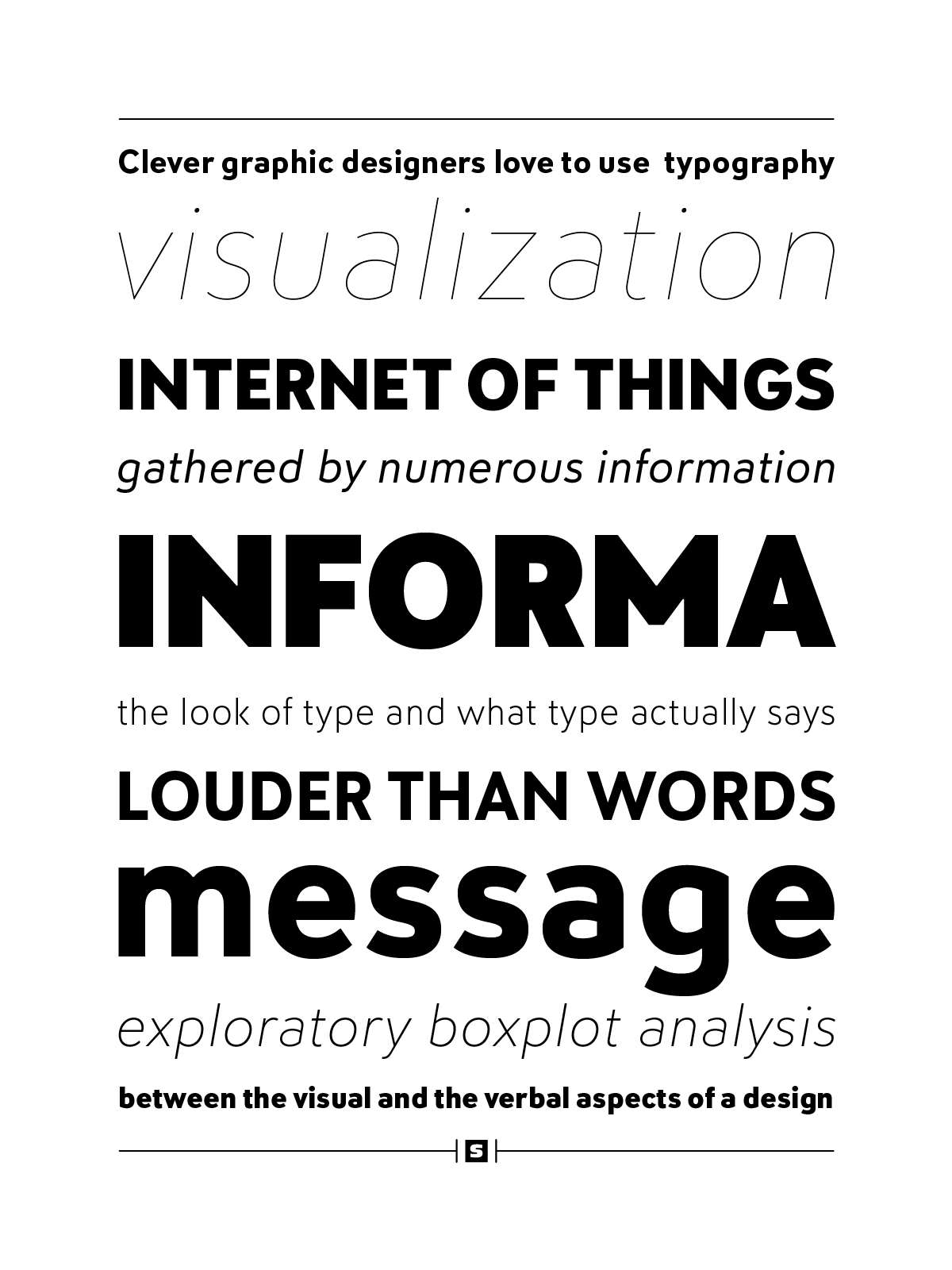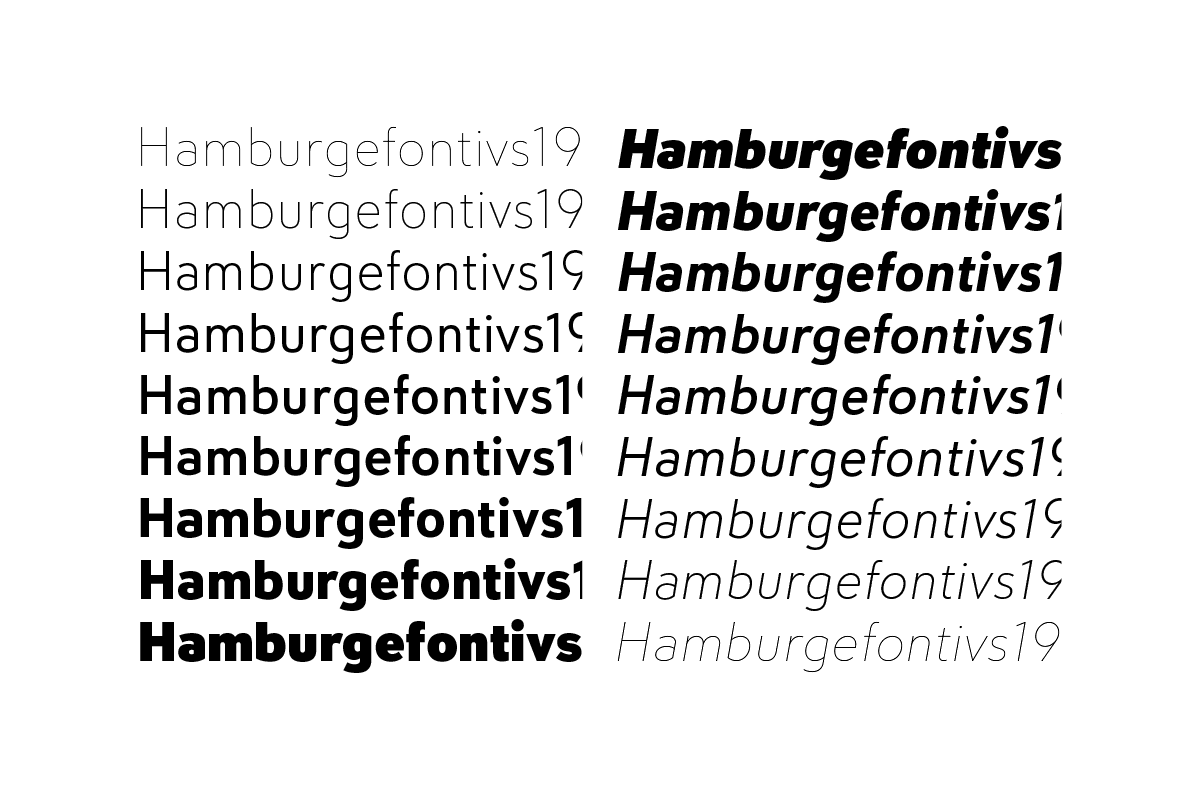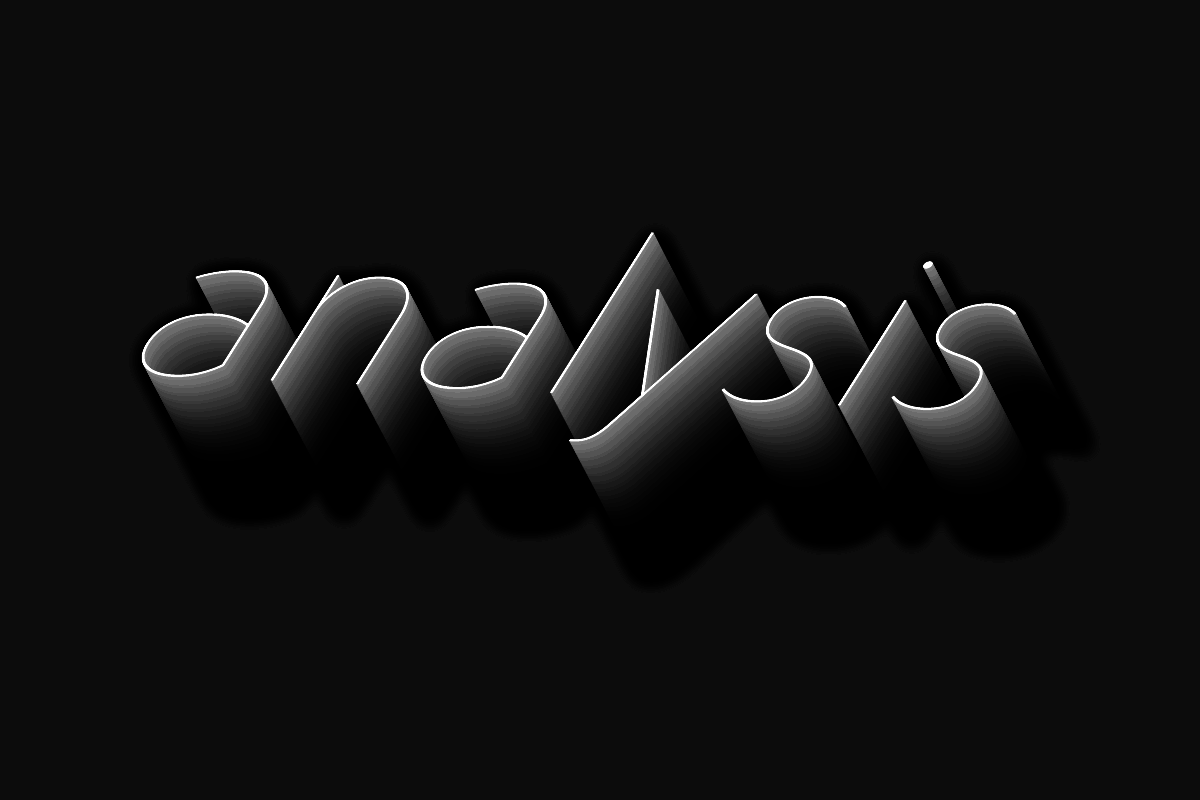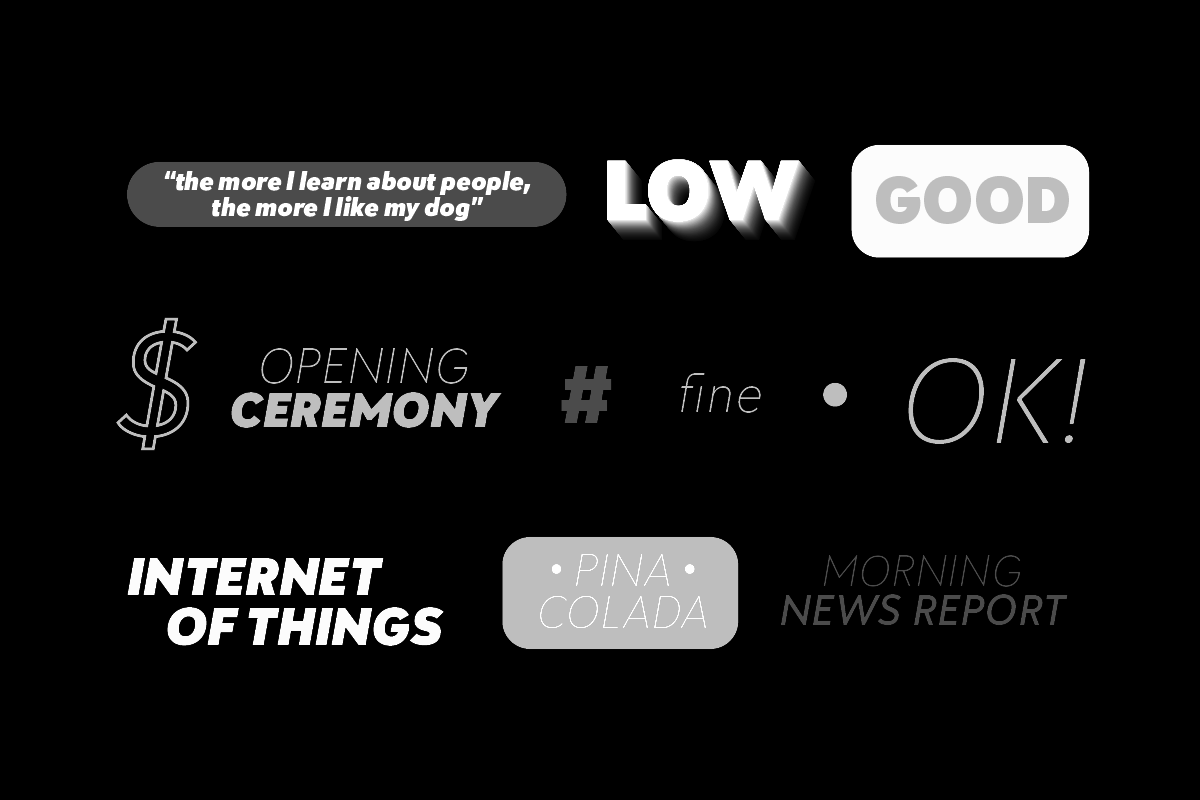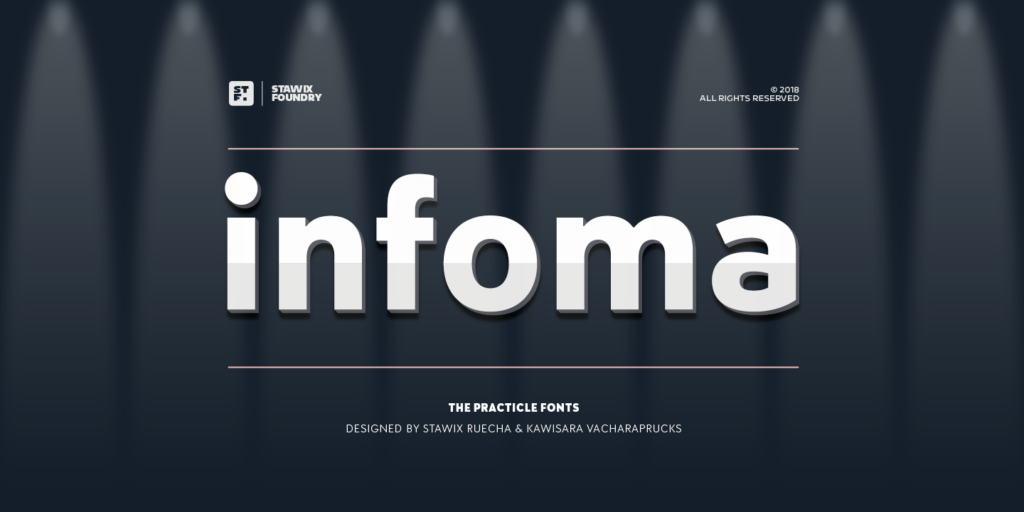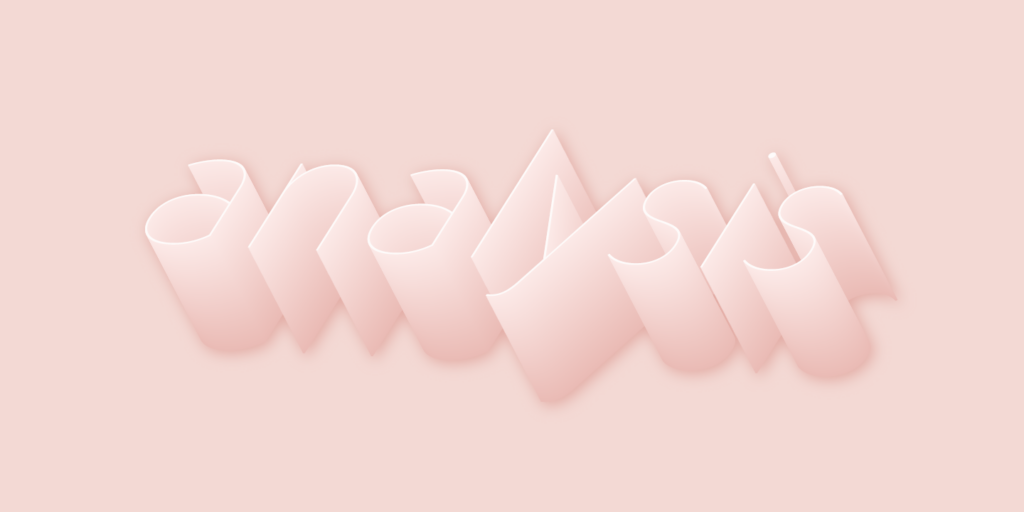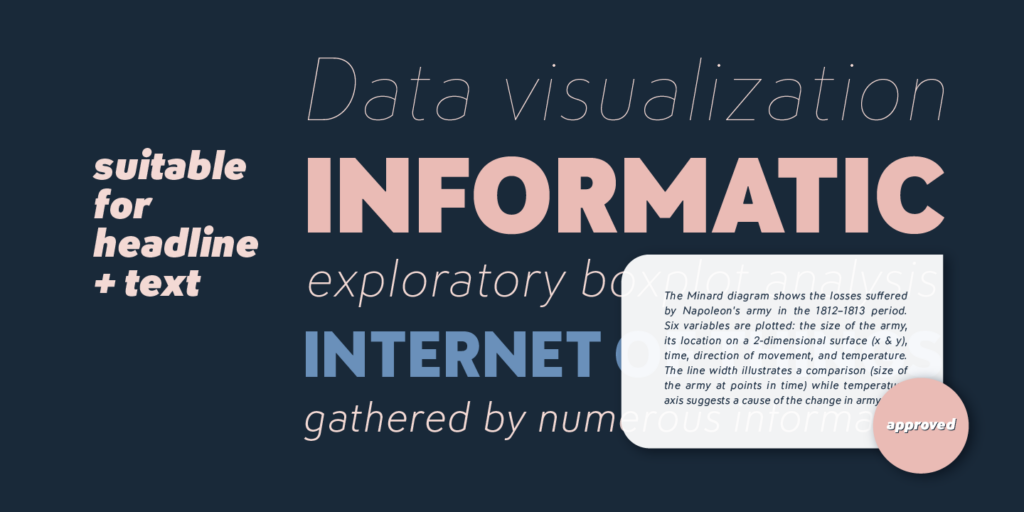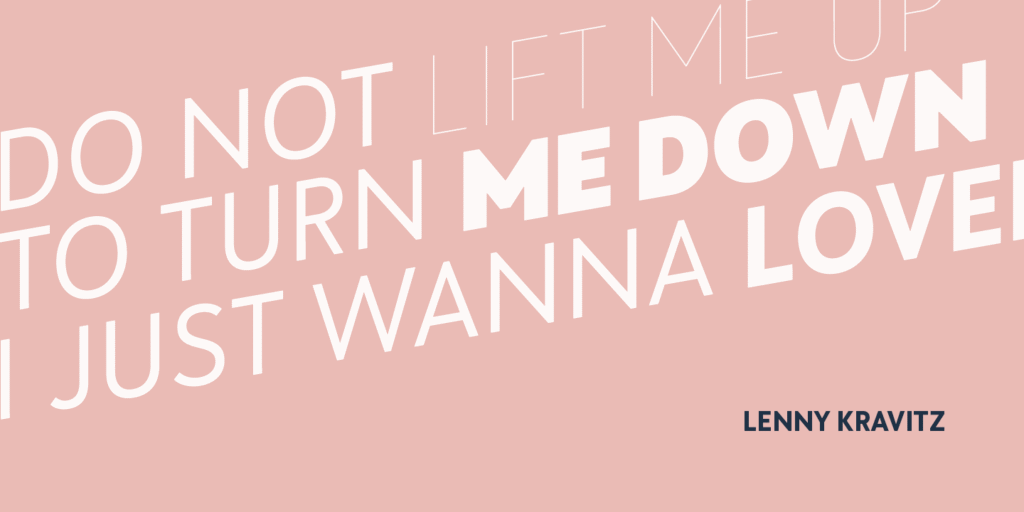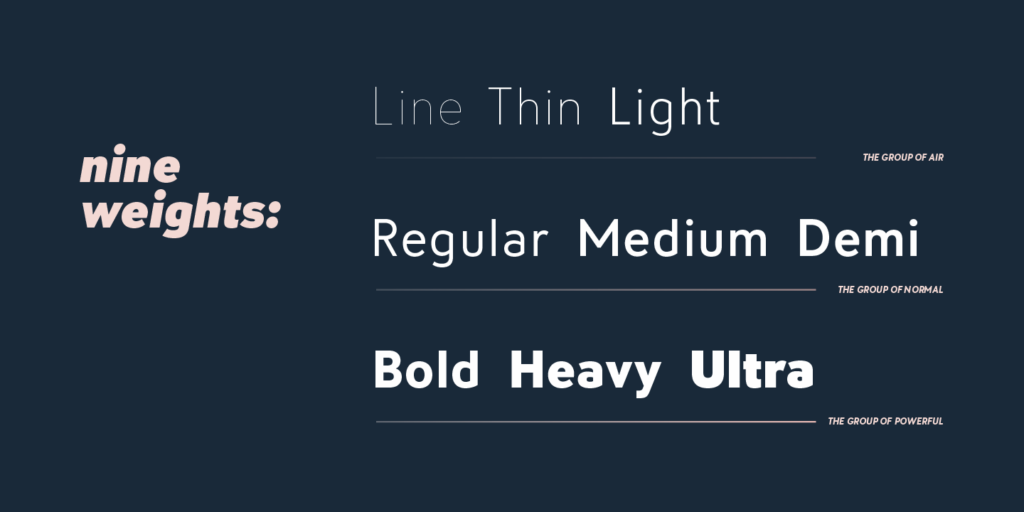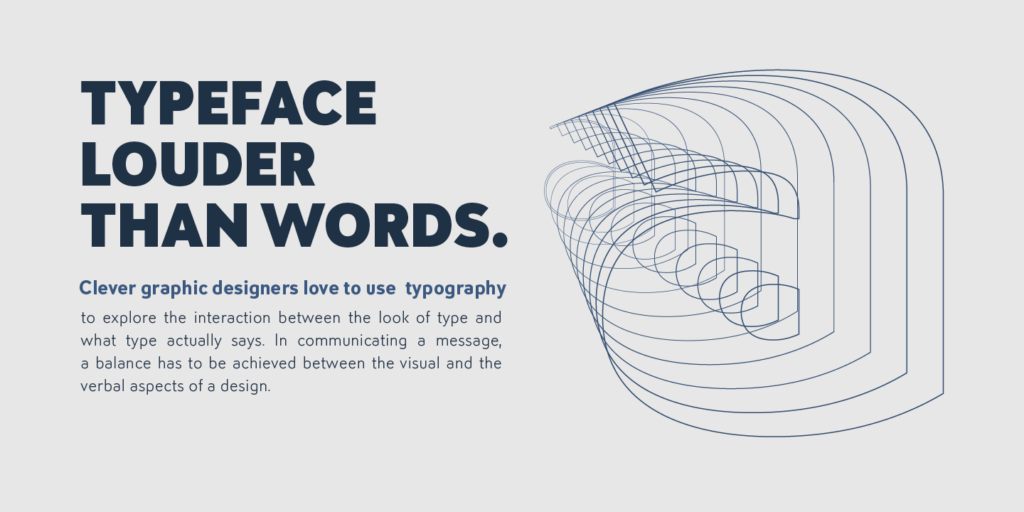
Infoma — STAWIX Foundry
The family feels flexible enough for branding, posters, and editorial work.
Designer
Stawix Ruecha
OpenType Features
About
Infoma is designed based on simplicity results in easy and comfortable usage which allows Infoma to perform flawlessly in every layouts. If meticulous, flexible, eye-pleasing and easy to use typeface you are looking for, we recommend Infoma. Infoma consists of 18 styles from Line to Ultra, supporting many OpenType features, such as tabular numerals, inferiors & superiors, numerators & denominators, fractions, ligatures etc.